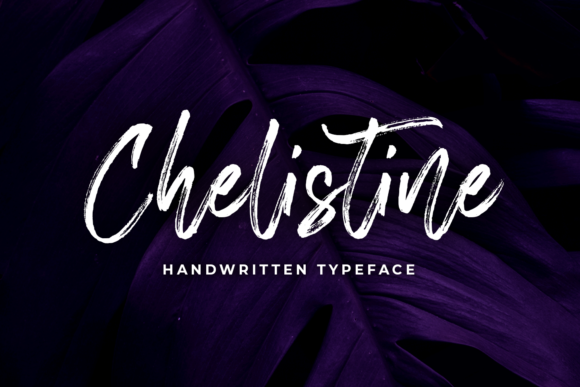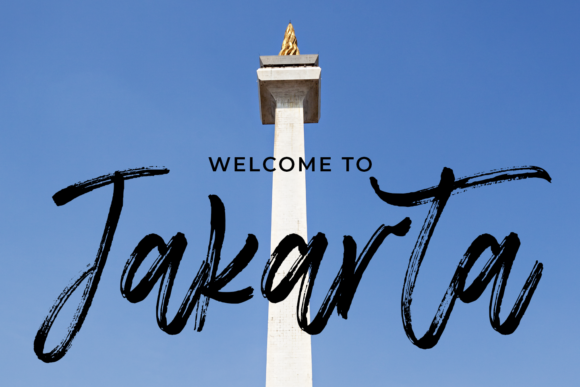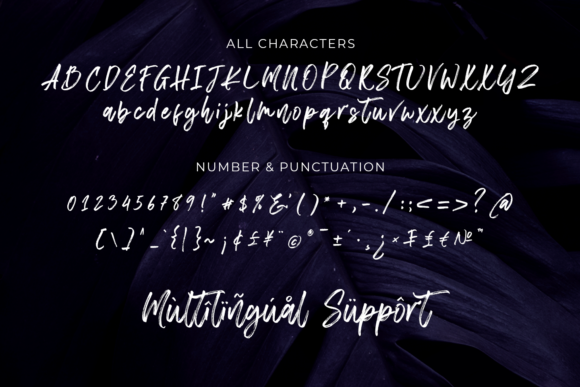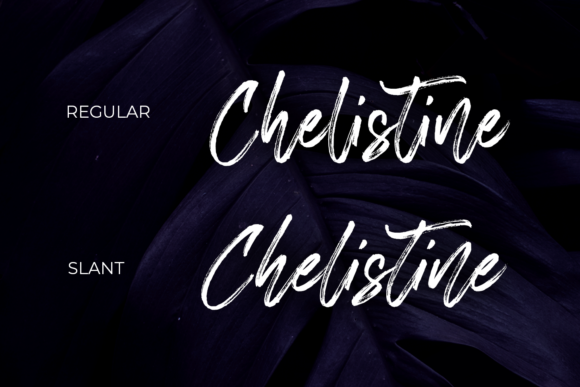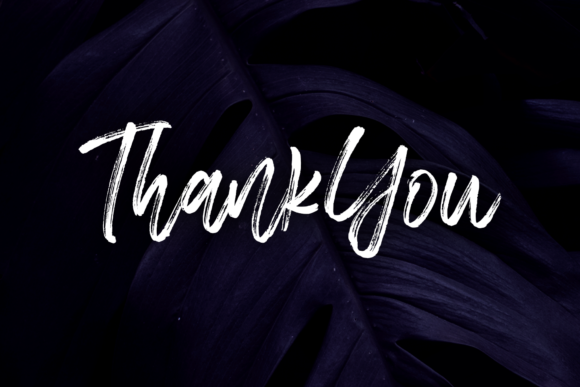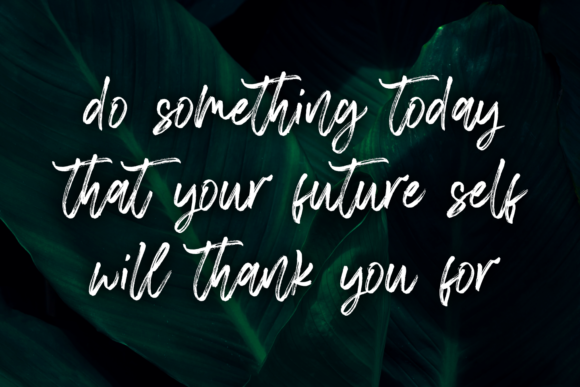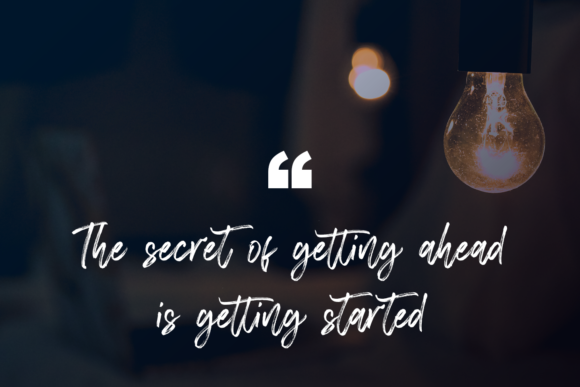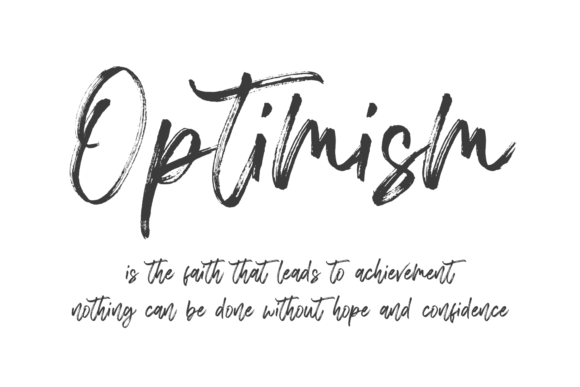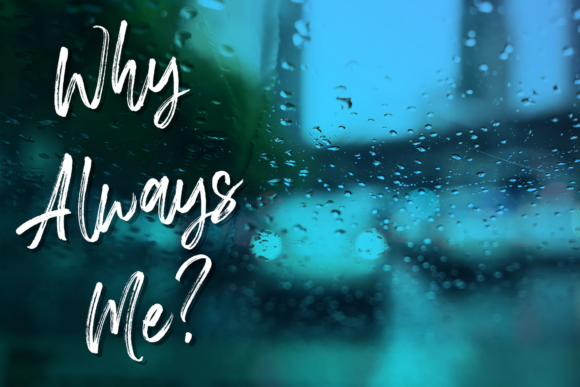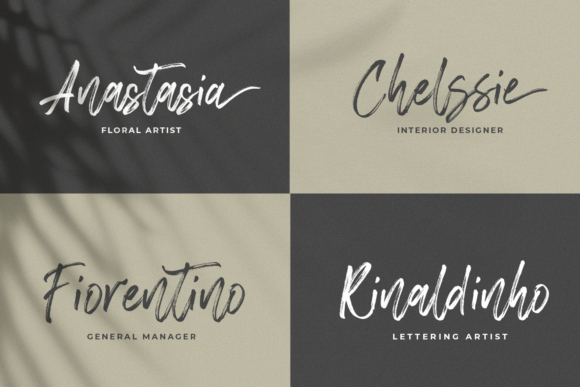
HomeScript FontsChelistine Font Script Fonts Chelistine Font FacebookXPinterestWhatsApp Chelistine Font Poster 2 Chelistine Font Poster 3 Chelistine Font Poster 4 Chelistine Font Poster 5 Chelistine Font Poster 6 Chelistine Font Poster 7 Chelistine Font Poster 8 Chelistine Font Poster 9 Chelistine Font Poster 10 Chelistine Font Poster 11 Chelistine Font Poster 12 Chelistine Font Poster 13 Chelistine Font Poster 14 About Chelistine Font Chelistine is a unique and modern script font with flowing curves. Fall in love with its playful look & feel! DOWNLOAD ON CREATIVE FABRICAThis font is sold and delivered by Creative Fabrica. Font Canyon may earn a commission if you buy through this link. People also explored Ramozact Font Remetak Font And Story Font Retro Signature Font Holiday Font Black Thorus Font Maulida Font Fridey Font Baiser Font 358 0 TagsChelistine Font Previous articleOsirish FontNext articleRamdone Font LEAVE A REPLY Cancel reply Comment: Please enter your comment! Name:* Please enter your name here Email:* You have entered an incorrect email address! Please enter your email address here Website: Save my name, email, and website in this browser for the next time I comment. Personal Use Free Austin Personal Use Free Read more about this font Styledeep Personal Use Free Read more about this font Electroharmonix Personal Use Free Read more about this font Angista Script Personal Use Free Read more about this font BLOG Best Fonts for YouTube Videos: Make Your Thumbnails Stand Out Best Fonts for YouTube Videos: Make Your Thumbnails Stand Out Choosing the right font can make a massive difference in how your YouTube videos perform.... Top 10 Handwritten Fonts That Elevate Your Designs Fonts That Capture the Spirit of New York City Elegant Wedding Invitation Fonts – Handwritten & Script Fonts